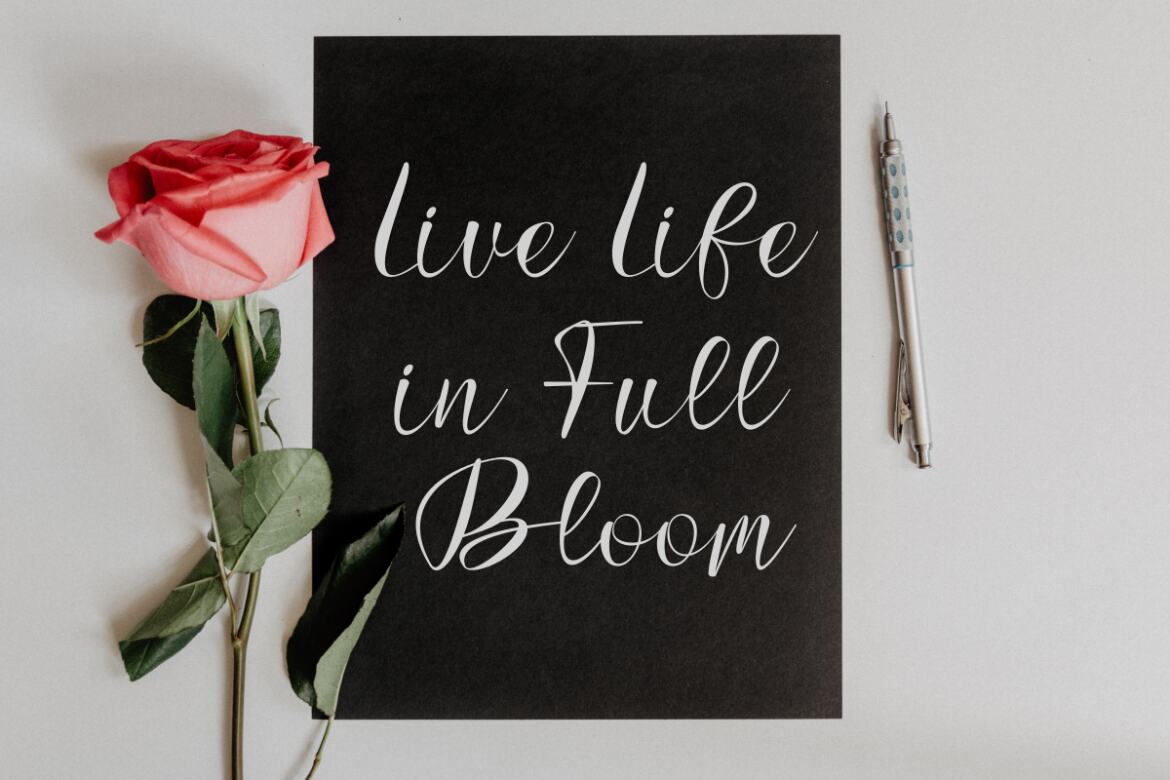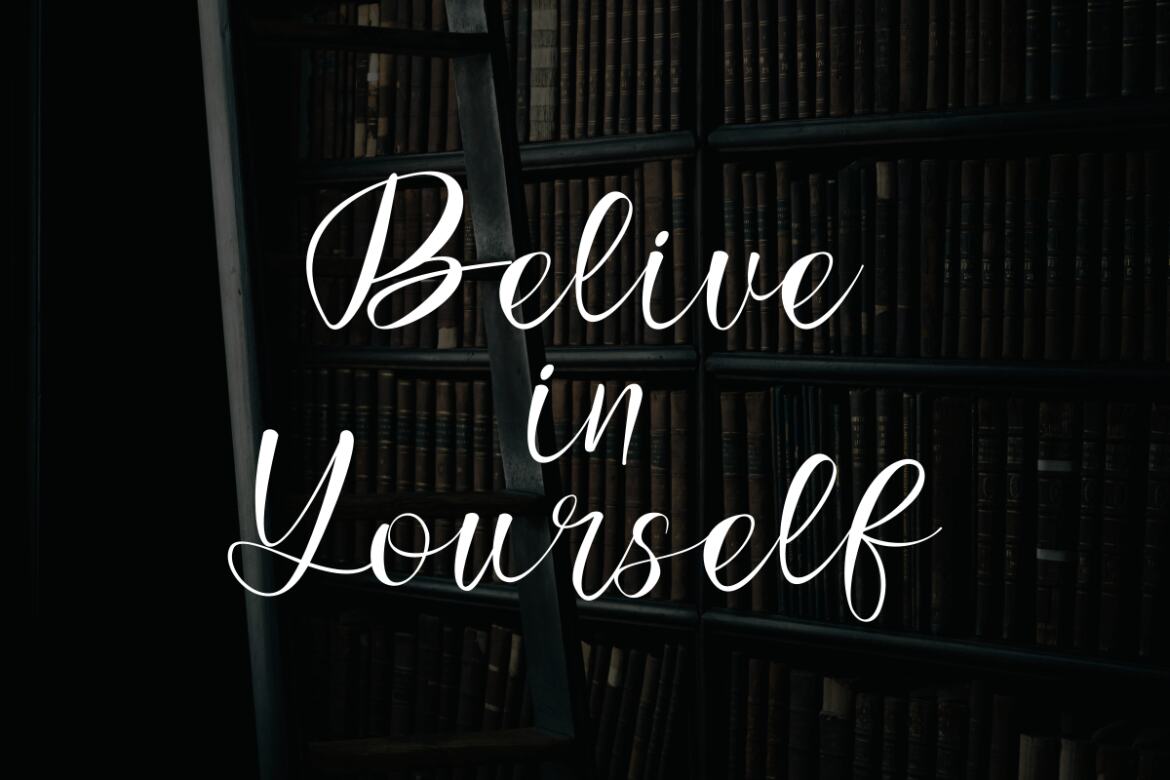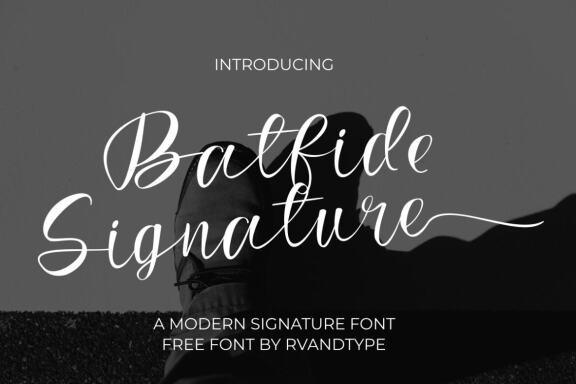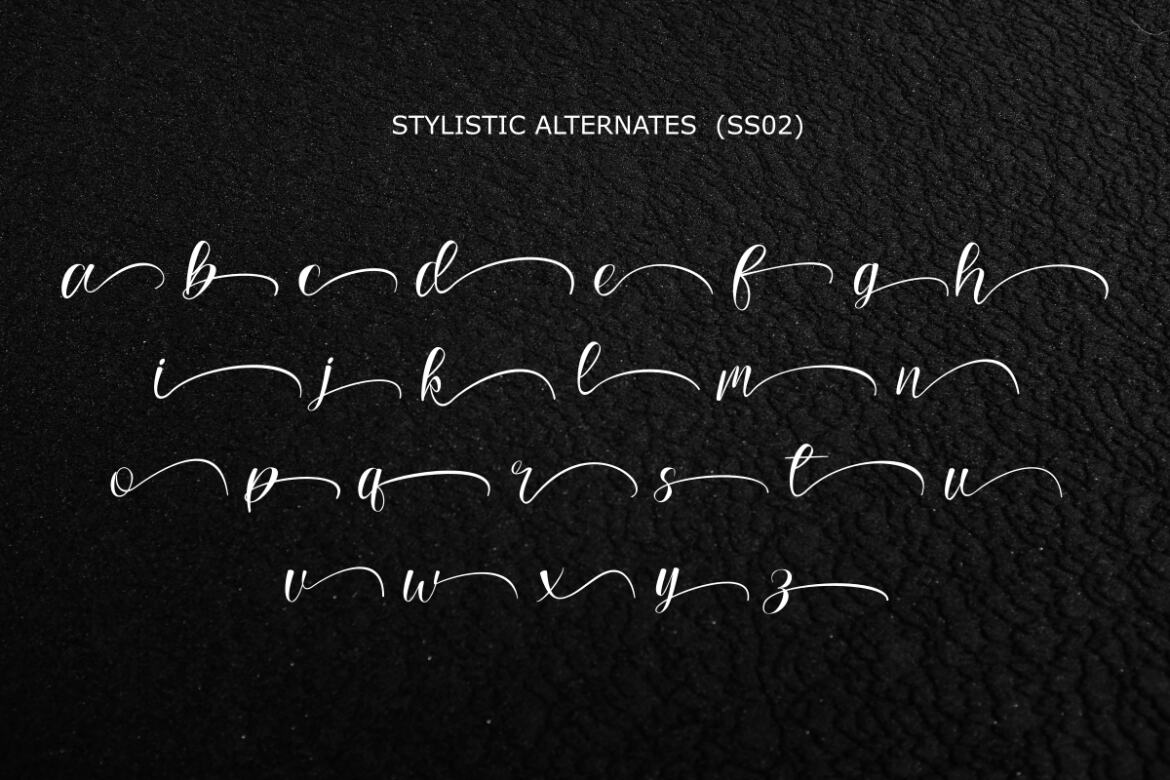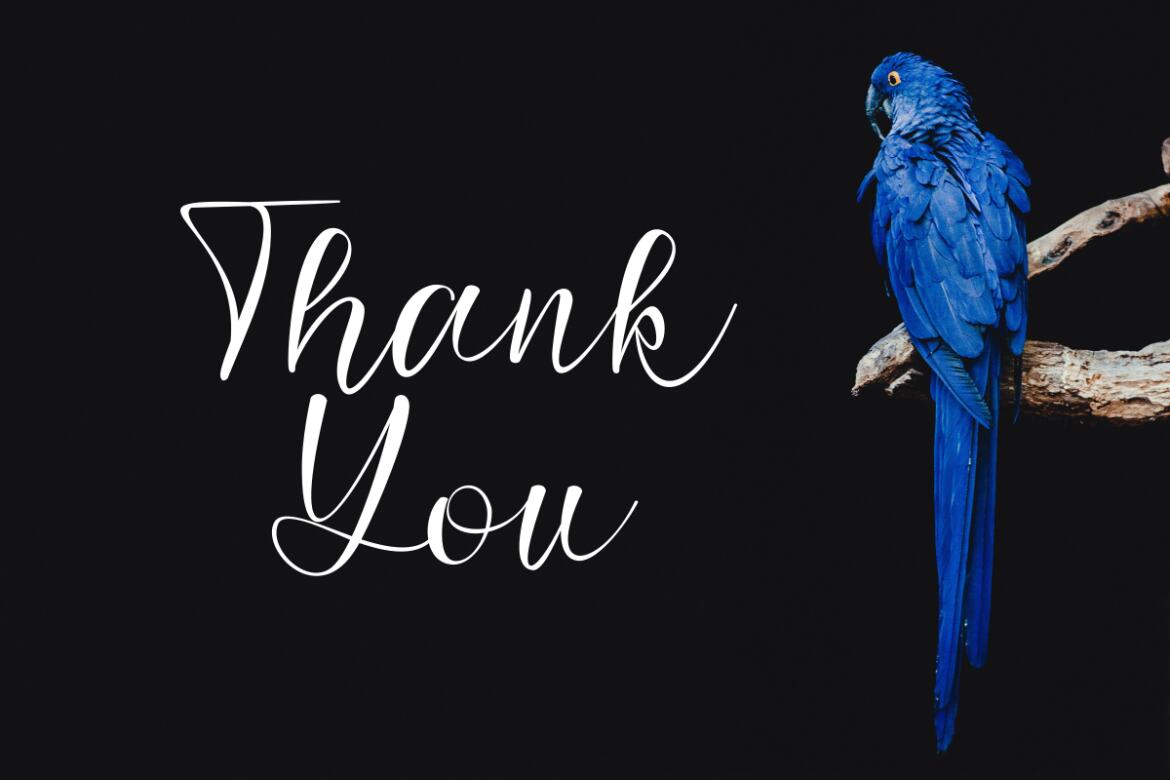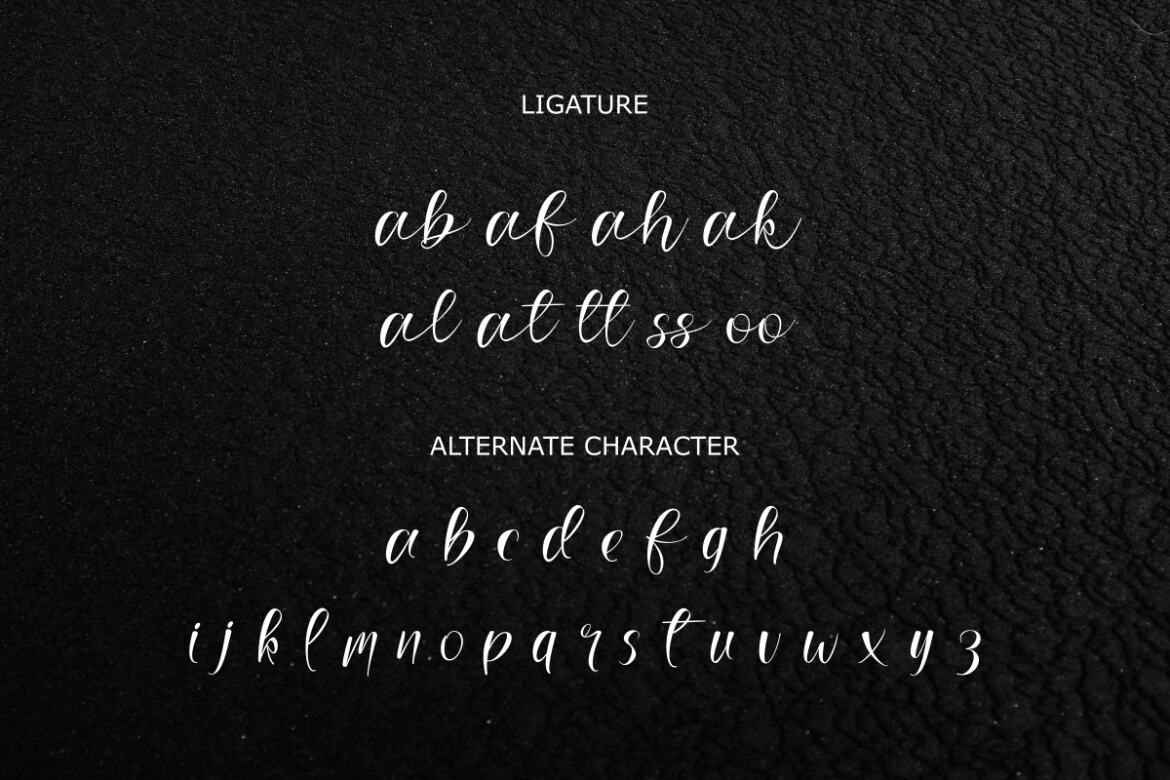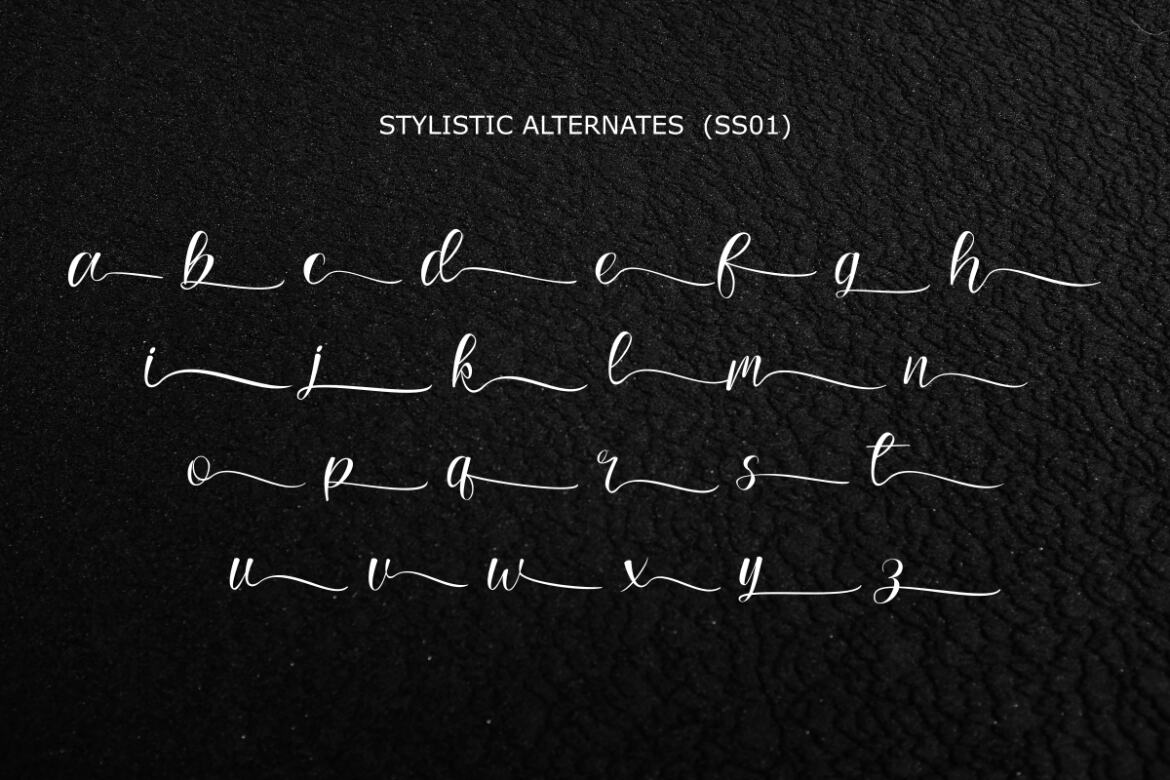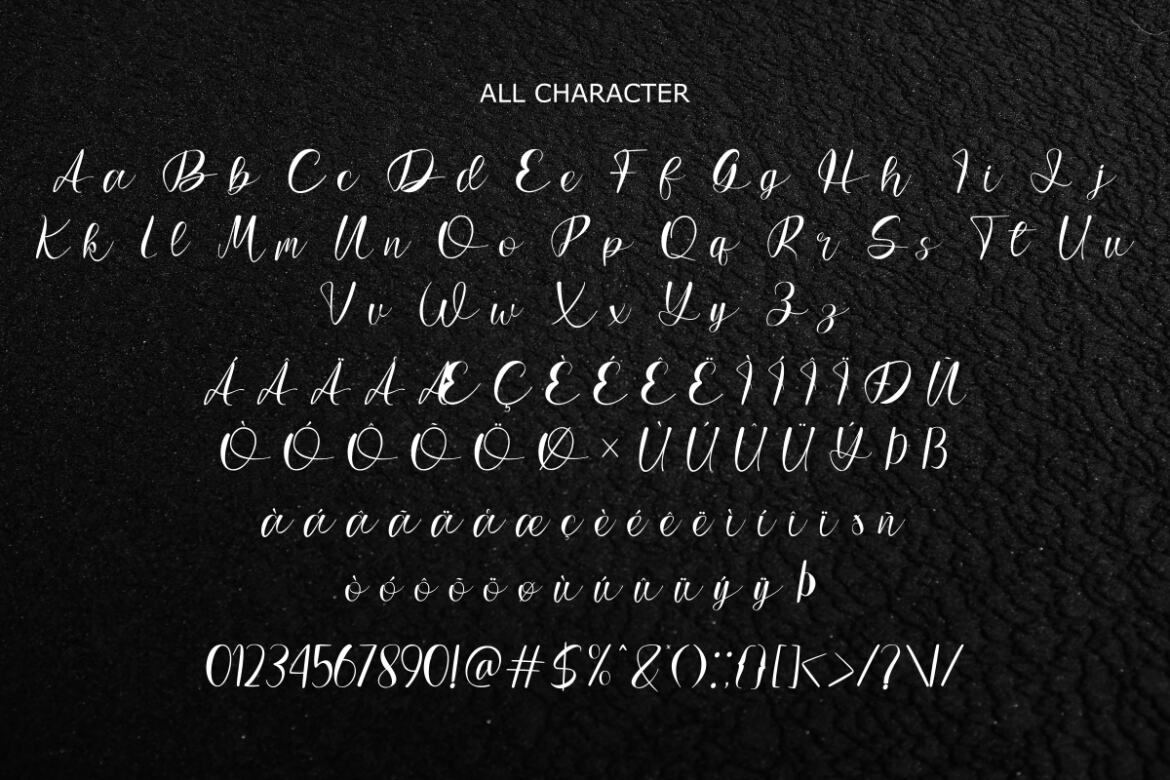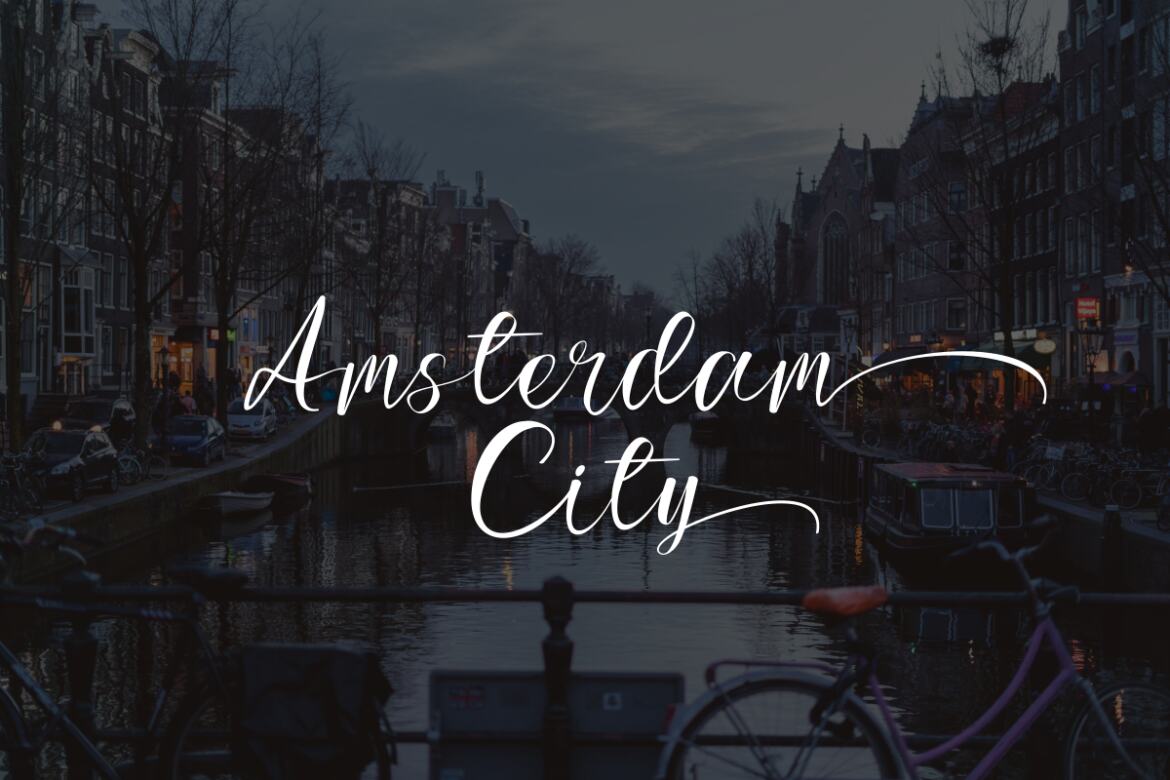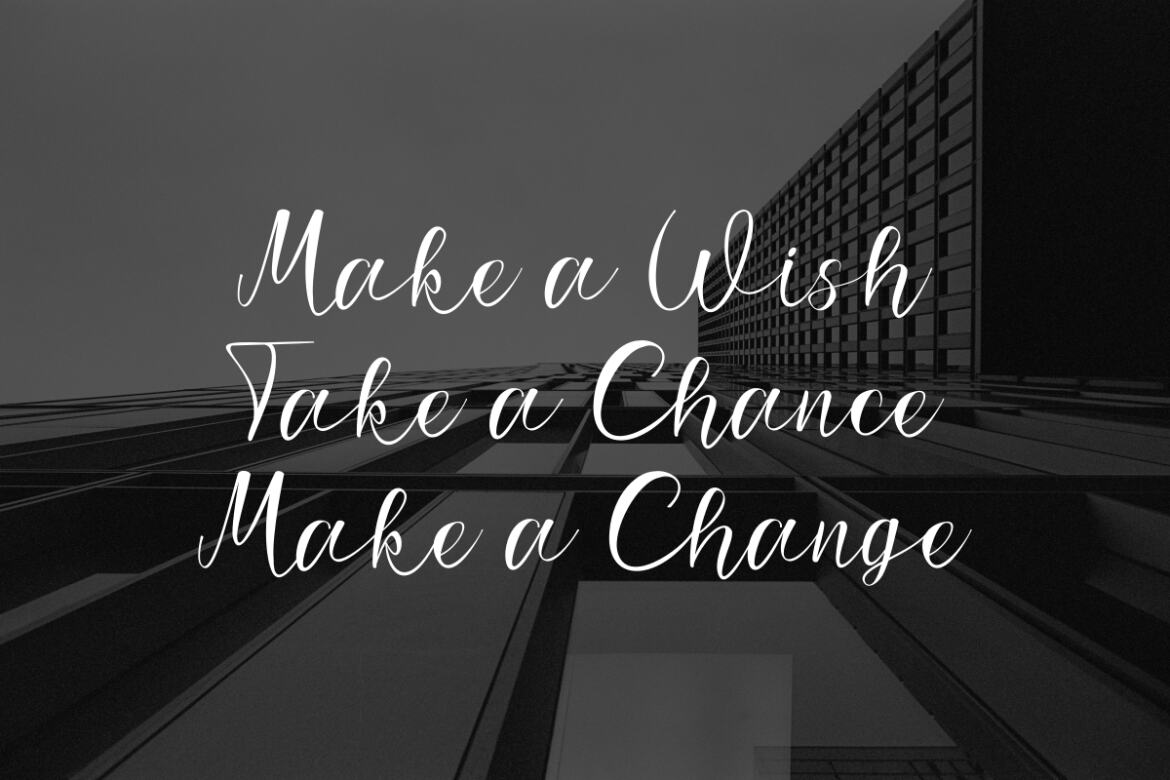
Batfide Signature - Free Font
Batfide Signature
Batfide is Handwritten Script font. It has a elegant, and modern look which can be used for logos, branding, invitations, stationary, wedding designs, social media posts, and every other design.